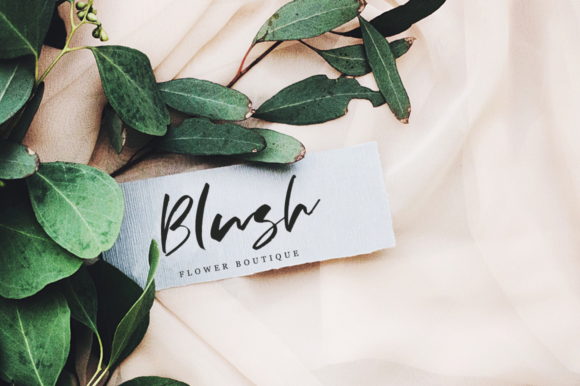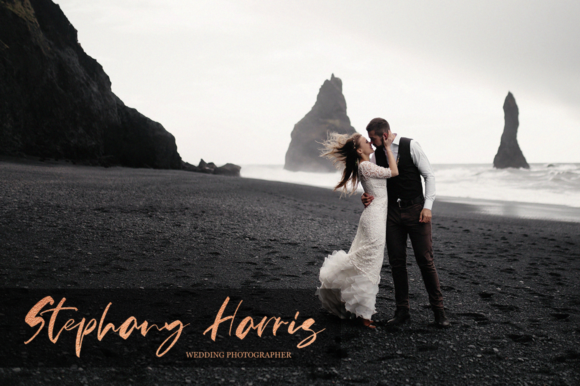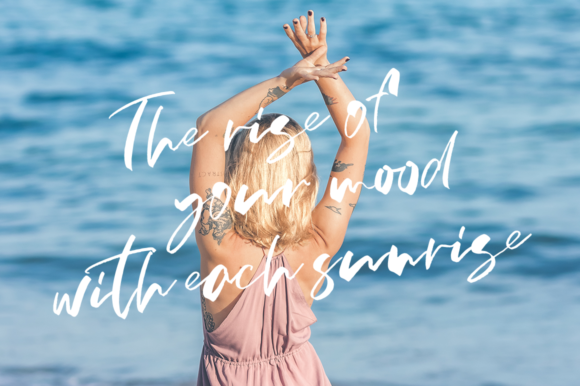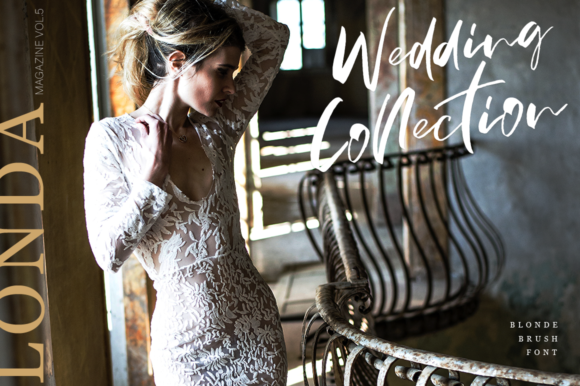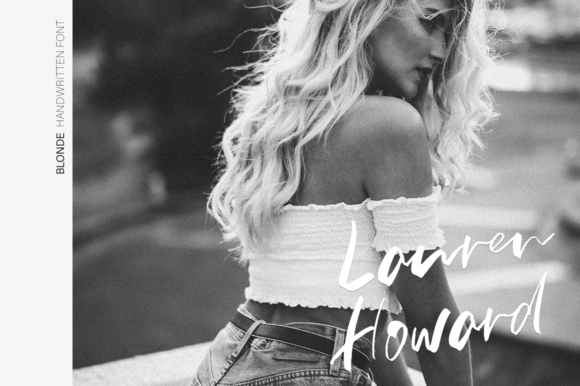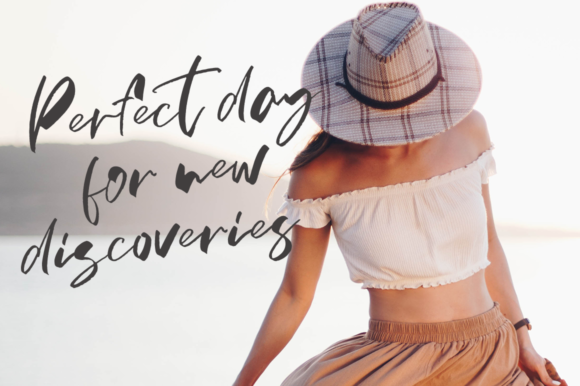
Introducing Blonde Font: The Ultimate Decorative Touch for Your Branding
Are you looking for a font that can add a touch of elegance and sophistication to your branding? Look no further than Blonde Font. This beautiful font is perfect for designers and crafters who want to create stunning visual content that stands out from the crowd. In this article, we’ll explore the features and benefits of Blonde Font, and how it can be used to elevate your branding, marketing materials, and personal projects.
What is Blonde Font?
Blonde Font is a decorative font that is designed to add a touch of glamour and sophistication to your project. Its elegant and cursive design makes it perfect for use in wedding invitations, blog displays, logos, and personal quotes. The font is highly versatile and can be used for a wide range of applications, from small business branding to book covers and marketing materials.
Why Choose Blonde Font?
So, why should you choose Blonde Font for your branding and design needs? Here are just a few reasons:
- Elegant Design: Blonde Font has a beautiful, cursive design that adds a touch of elegance and sophistication to any project.
- Versatility: The font is highly versatile and can be used for a wide range of applications, from wedding invitations to book covers and marketing materials.
- Easy to Read: Despite its decorative design, Blonde Font is easy to read and can be used for both headings and body text.
- Unique and Creative: Blonde Font is a unique and creative font that will help your branding and designs stand out from the crowd.
How to Use Blonde Font
Blonde Font can be used in a variety of ways to elevate your branding and designs. Here are a few ideas:
- Wedding Invitations: Use Blonde Font to create beautiful and elegant wedding invitations that set the tone for your special day.
- Blog Display: Add a touch of glamour to your blog with Blonde Font, perfect for headings and titles.
- Logo Design: Use Blonde Font to create stunning logos for your small business or personal brand.
- Personal Quotes: Add a touch of elegance to your personal quotes and social media posts with Blonde Font.
- Marketing Materials: Use Blonde Font to create eye-catching marketing materials, such as brochures, flyers, and posters.
- Book Covers: Add a touch of sophistication to your book covers with Blonde Font, perfect for fiction and non-fiction books.
- Magazines: Use Blonde Font to create stunning magazine covers and layouts.
Blonde Font is a great addition to any designer’s or crafter’s toolkit. Here are just a few benefits:
- Time-Saving: With Blonde Font, you can create stunning designs in no time, saving you time and effort.
- Increased Creativity: The unique and creative design of Blonde Font will inspire your creativity and help you come up with new and innovative design ideas.
- Professional-Looking Designs: Blonde Font is designed to create professional-looking designs that will impress your clients and audience.